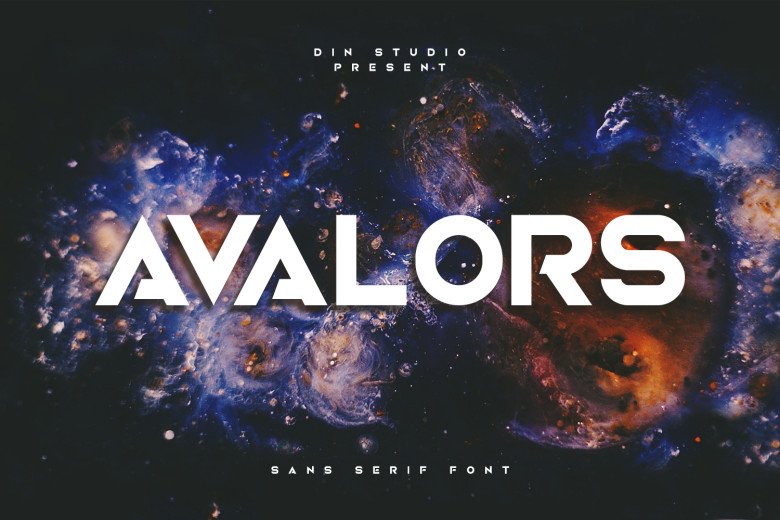
Avalors Font
Avalors is a bold and futuristic display font. Masterfully designed to become a true favorite, this font has the potential to bring each of your creative ideas to the highest level!
Avalors Sans Serif Font